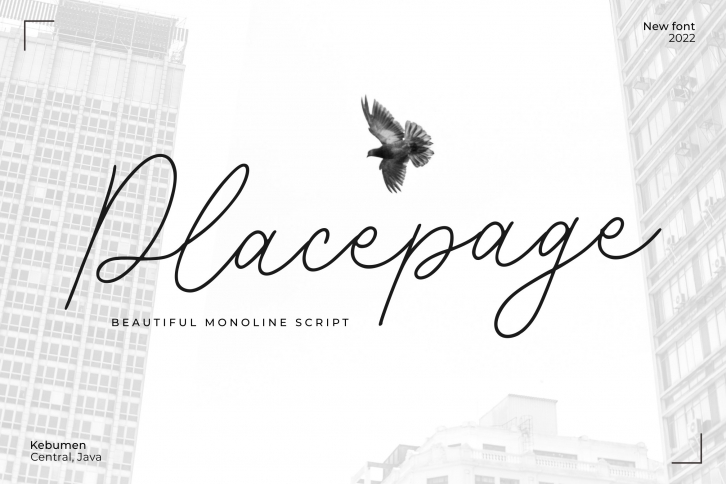
Placepage is a gorgeous font that was realeased on January 5, 2022. The font can be used in many style contexts and design environments. Perfect for invitations, magazines, websites, logos, and more! It was designed by Allouse Studio and the file size is 3.34 MB. Thanks for checking out this font!